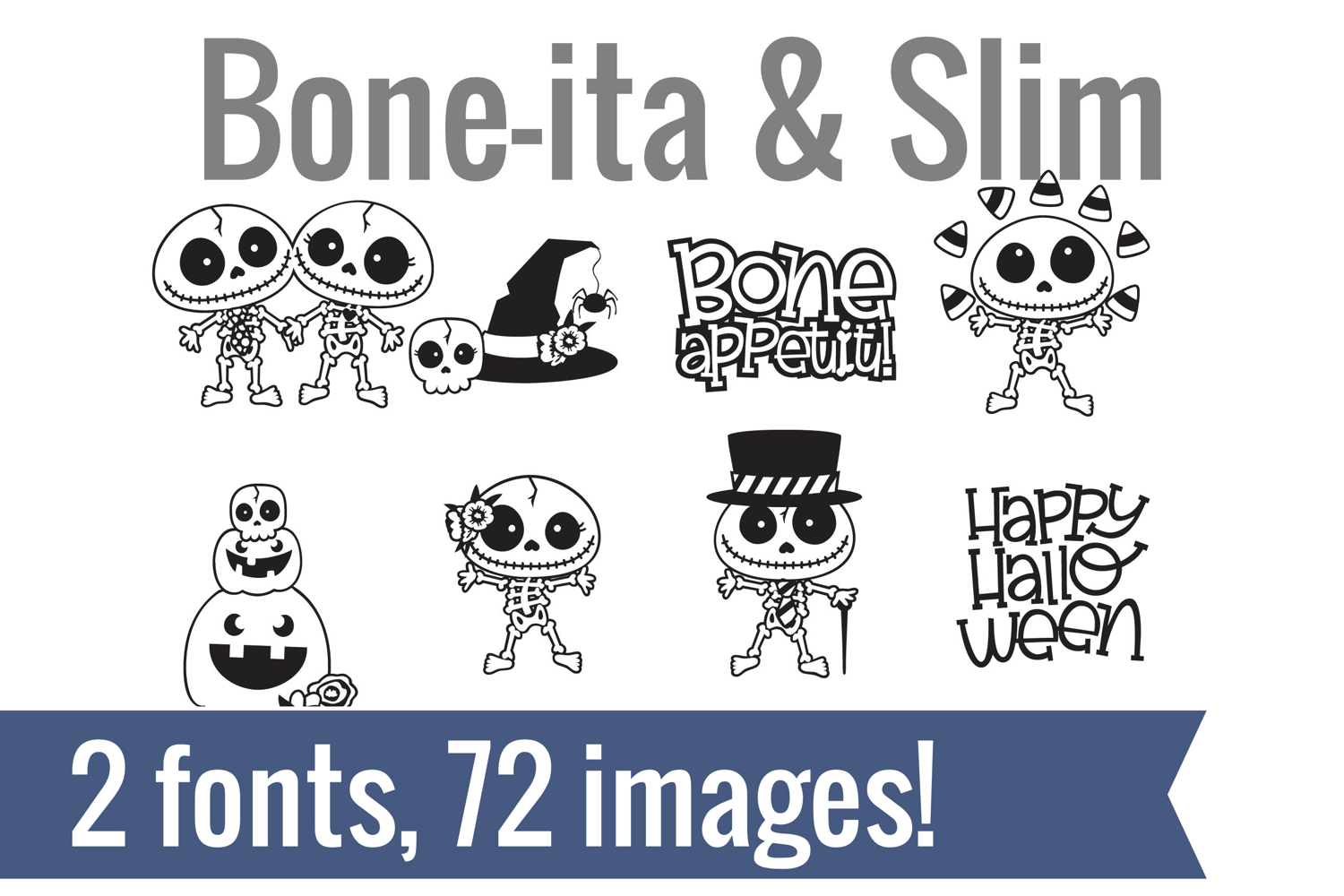
Bone-ita and Slim Dingbats
Unlock endless creativity with two perfectly coordinated fonts! There are two dingbat fonts in this bundle, both sporting the cutest skeleton crews and costumes.